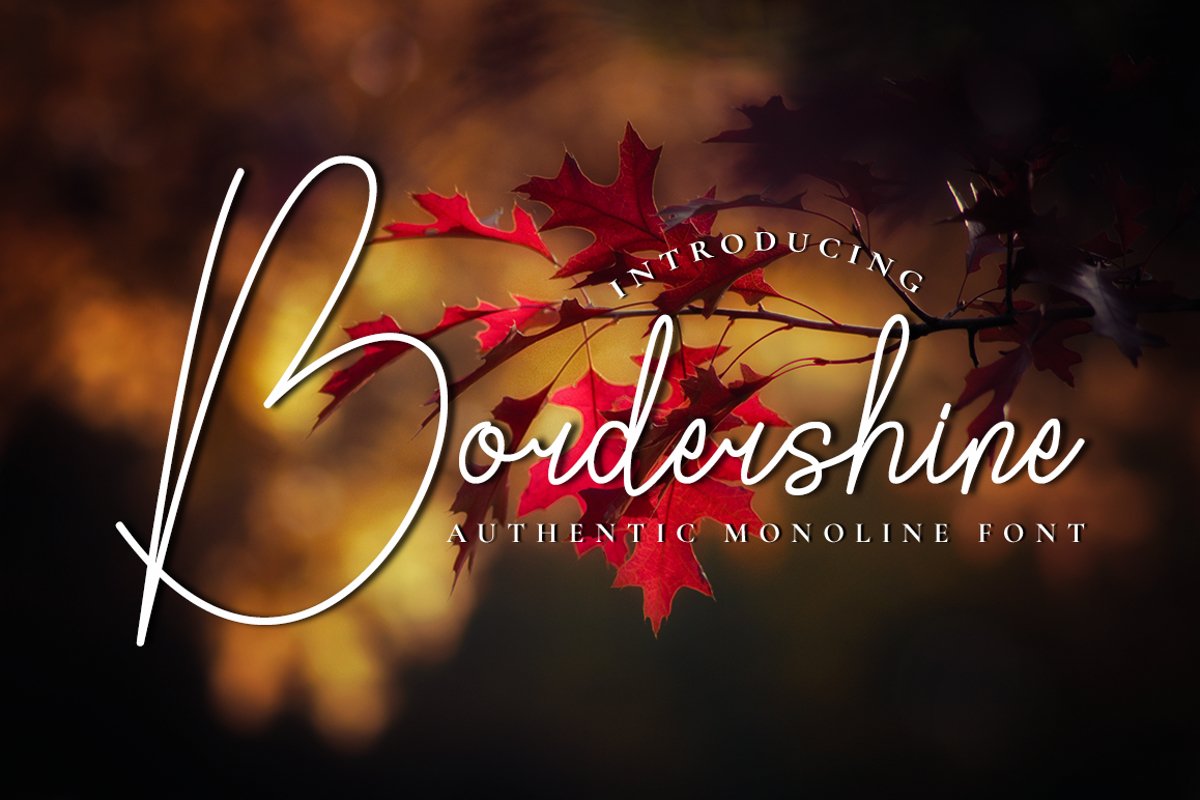
Bordershine Monoline
Bordershine Monoline is a modern calligraphy font with mono-line handwriting the model, the enchanting flow. It's perfect for branding, wedding invitations, photography, bloggers, logos, greeting cards and more.